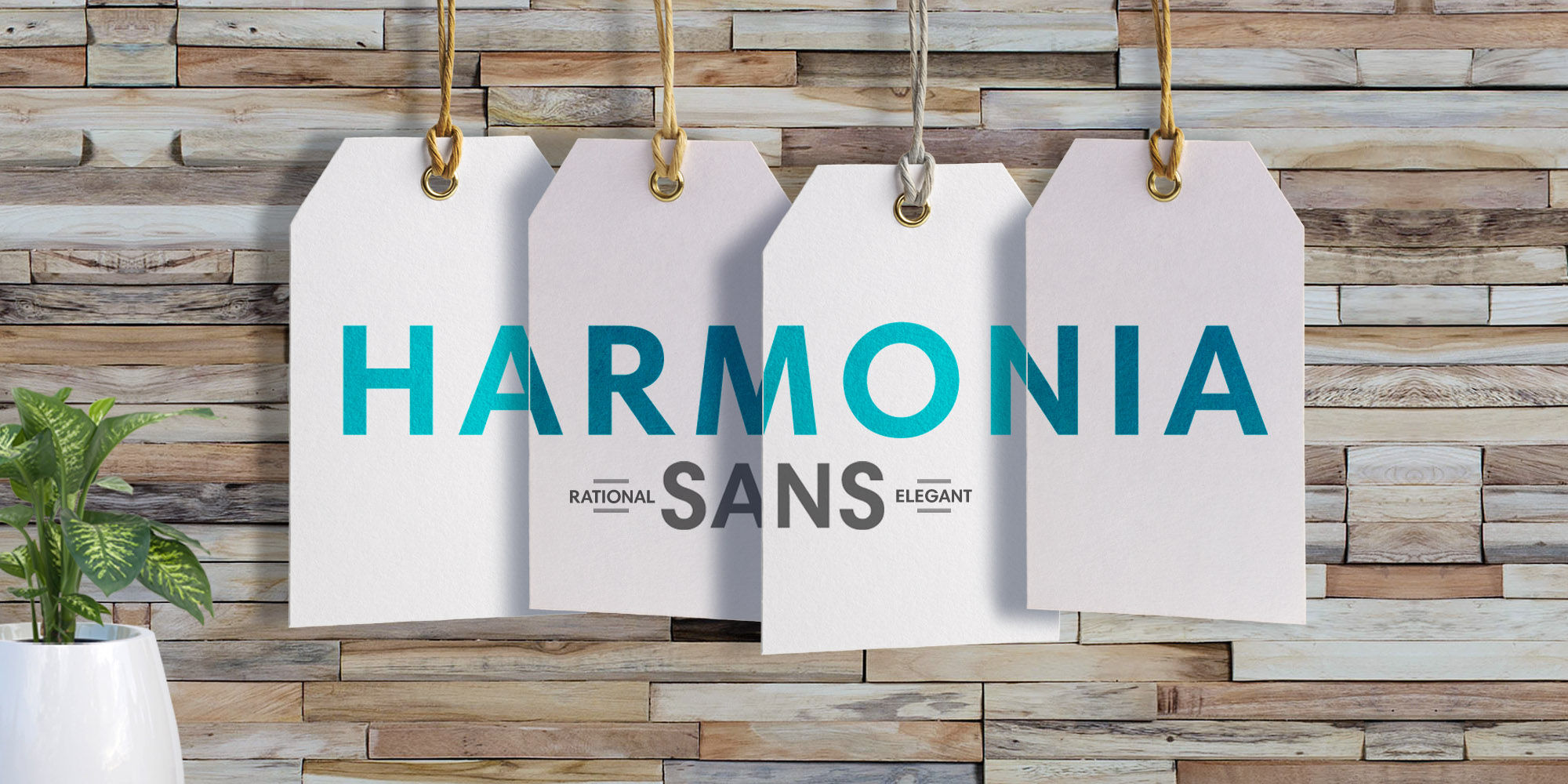
Harmonia Sans Font is perfect for luxury brand identities, high-end fashion magazines, architectural firm branding, minimalist product packaging, premium cosmetics labeling, art gallery exhibitions, contemporary furniture catalogs, wellness and spa communications, sophisticated web interfaces, and elegant corporate presentations. This refined typeface excels in environments where sophistication and visual harmony are paramount.
What makes Harmonia Sans Font exciting is its masterful balance of geometric precision and organic flow, creating a sense of perfect visual harmony. The font features carefully calibrated proportions and subtle curves that convey elegance without sacrificing functionality. This sophisticated approach makes it ideal for brands seeking to communicate refinement, quality, and timeless appeal while maintaining exceptional readability across all applications.
Harmonia Sans Font family includes Thin, Light, Regular, Medium, Semibold, Bold, Black, and corresponding Italic variants. Each weight maintains the font's distinctive harmonious character while offering designers complete flexibility for creating sophisticated typographic systems and cohesive brand experiences across multiple touchpoints.
Typography experts appreciate the font's exceptional technical craftsmanship, including refined optical adjustments, comprehensive OpenType features, and extensive multilingual support. The character set encompasses specialized symbols, ligatures, and alternate characters essential for sophisticated typographic compositions.
When implementing Harmonia Sans Font in design projects, the results consistently demonstrate both aesthetic beauty and functional excellence. The font's neutral yet distinctive personality makes it particularly effective for brands in luxury goods, professional services, and creative industries where credibility and sophistication are essential.
For digital environments, Harmonia Sans Font renders beautifully on high-resolution screens, where its subtle details and harmonious proportions can be fully appreciated. The font's scalability ensures consistent quality from small interface elements to large-format applications.
Creative professionals consistently select Harmonia Sans Font for projects requiring timeless elegance and visual harmony, where the typography itself becomes an integral part of the brand's sophisticated aesthetic identity.